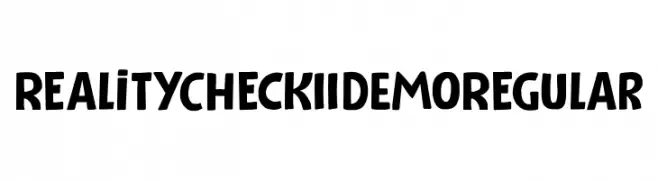
( Fonts by Hanoded )
A bold, playful font with chunky, stylized characters and whimsical elements.
( Fonts by Hanoded )
A playful, casual handwritten font with rounded, slightly irregular letterforms.
( Fonts by Hanoded )
A playful, hand-drawn font with whimsical, thin lines and unique character designs.
( Fonts by Hanoded )
A bold, playful, and hand-drawn style font with a whimsical touch.
( Fonts by Hanoded )
A playful, handwritten font with a whimsical and friendly style.
( Fonts by Hanoded )
A bold, playful font with rounded edges and a whimsical style.